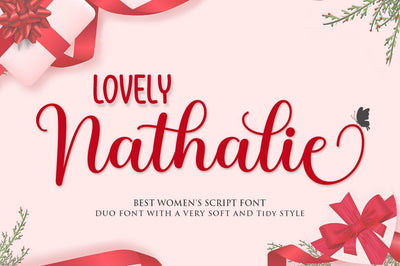
Lovely Nathalie Script Font DUO
Introducing
Lovely Nathalie Script Font DUO in a very soft and beautiful handwriting style. Equipped with 400+ glyphs. Lovely Nathalie is perfect for branding projects, homeware design, product packaging, use in business cards, invitation cards, etc. Simply as a stylish text overlay onto a background image or anything that requires a touch of elegance.